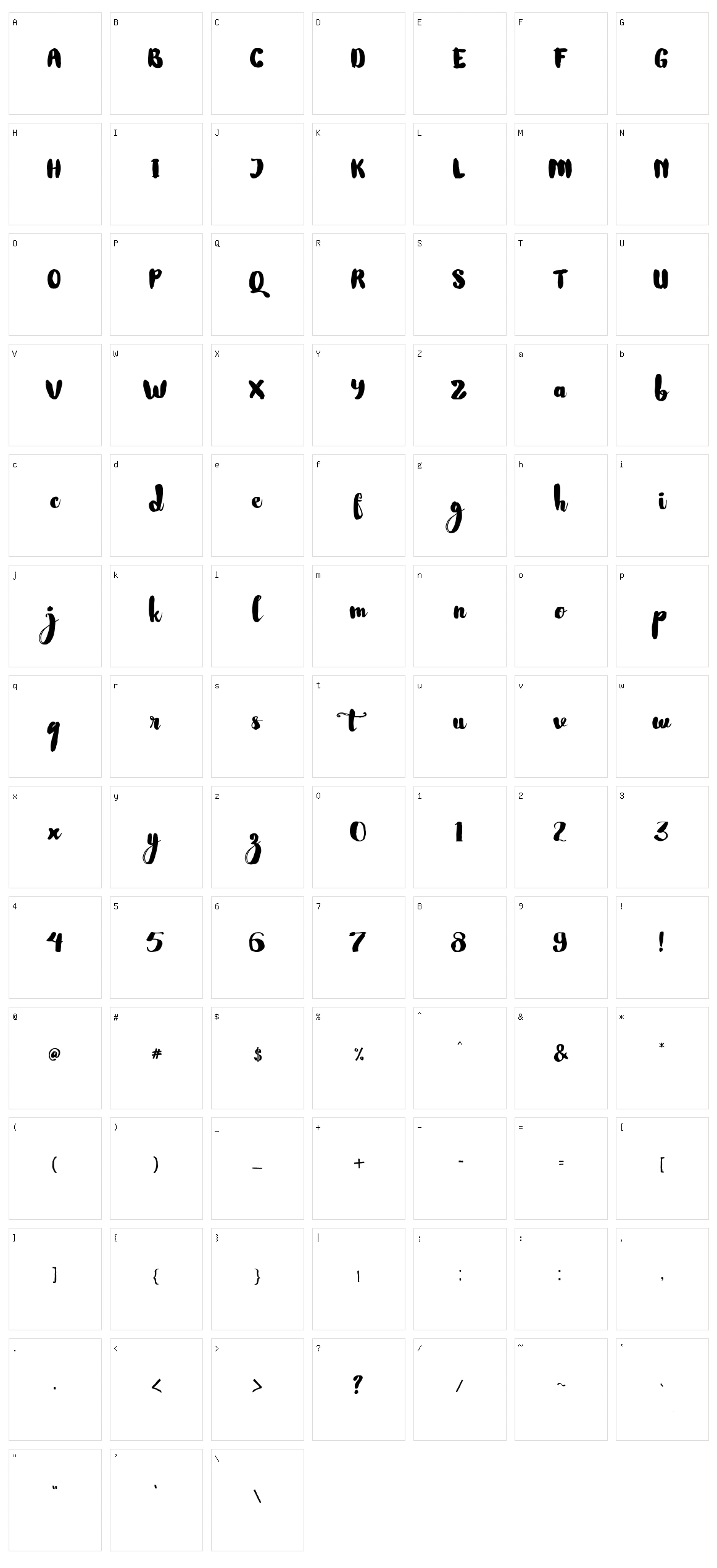
Nightamore Brush Free Font
This is Handrawn Brush Font, Modern Vintage Calligraphy style, Suitable for design, element design, wedding, event, t-shirt, logo, badges, sticker, and awesome work, etc...
- Combination alternative ligature fonts
- Standard Ligatures, Stylistic Set, Multilanguage Characters
- Modern Calligraphy Typeface
- Unique style fonts
- Easy customize